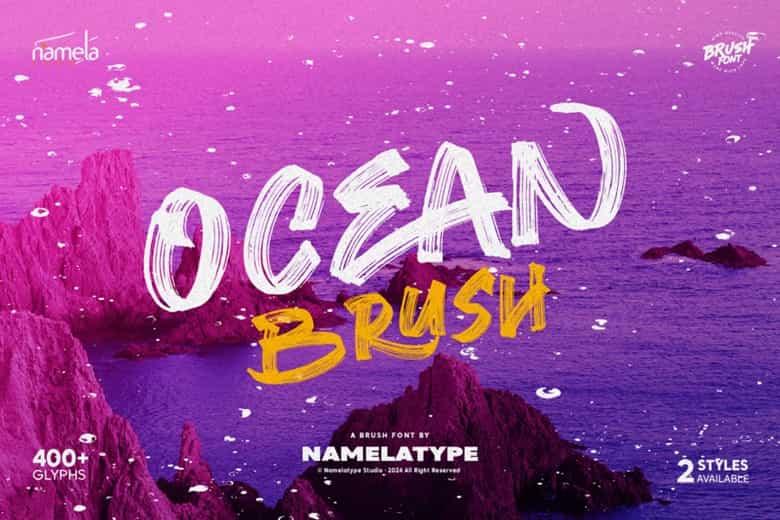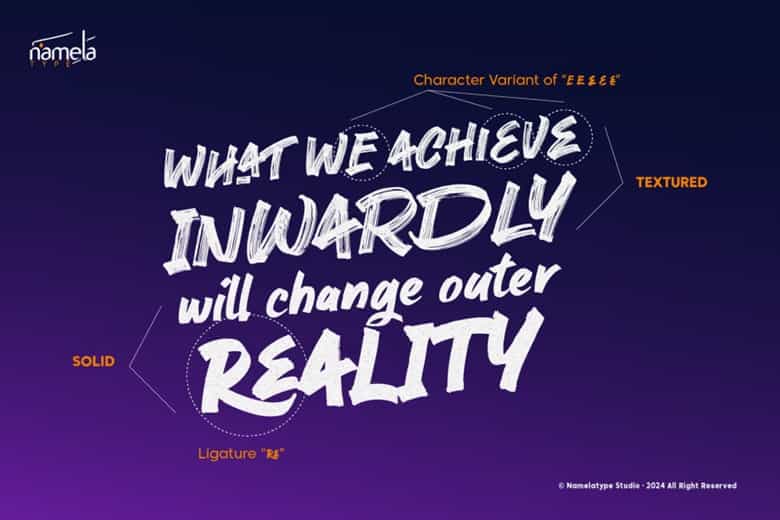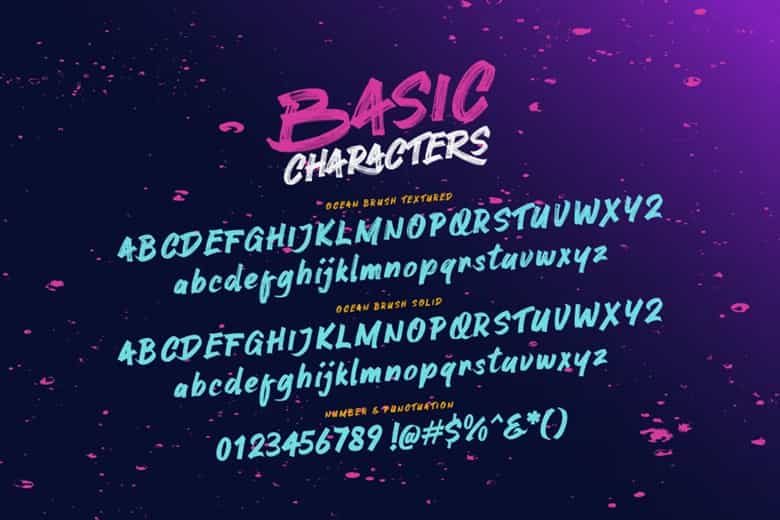
The Ocean Brush is a script brush font that was created with the idea of the fluidity of the wave in mind. All these strokes in this font reveal the power of nature, and they create a natural and striking artistic effect to your creation. It achieves this in a way that makes it suitable for use in a number of different projects because on the one hand it is serene and on the other it is strong.